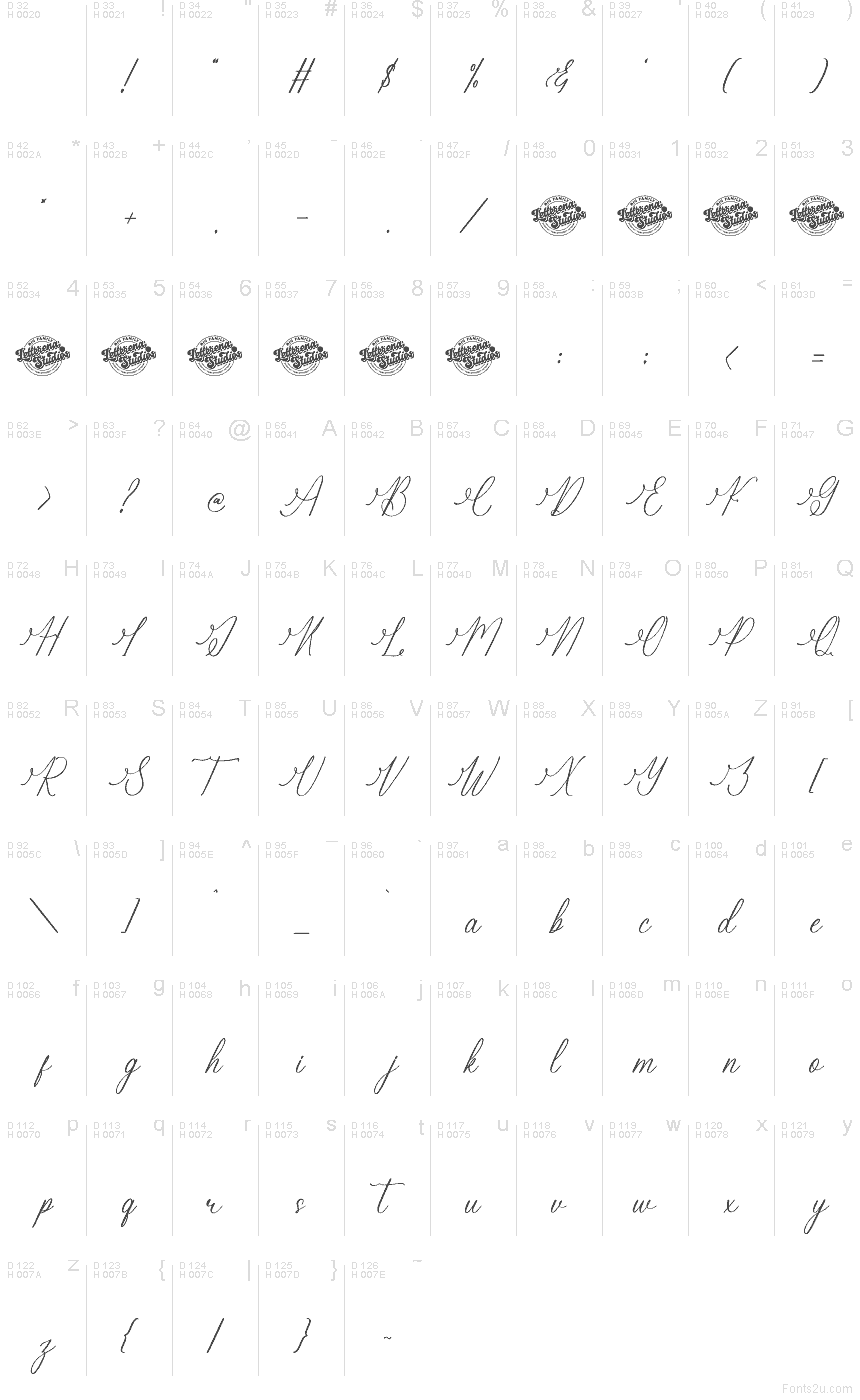
Berlanfi Sankisse DEMO VERSION
Berlanfi Sankisse font by Letterena Studios is a free calligraphy typeface with a delicate, handwritten grace that feels like ink flowing across fine stationery. Light, looping strokes, long tails, and airy spacing give it an effortlessly romantic rhythm, as if it were penned with a practiced hand rather than typed. There’s a gentle transparency to the lines that keeps it from feeling heavy, making Berlanfi Sankisse especially beautiful at larger sizes where every curve can breathe.
Using Berlanfi Sankisse, you can bring a refined, personal touch to wedding invitations, save-the-dates, elegant logos, boutique branding, product packaging, social media quotes, and stationery suites. This free font works beautifully when paired with a clean sans serif for body text, letting its ornate script handle names, headings, and key phrases. Set it a bit larger than your supporting type to showcase its swirling forms and keep the design readable and luxurious.